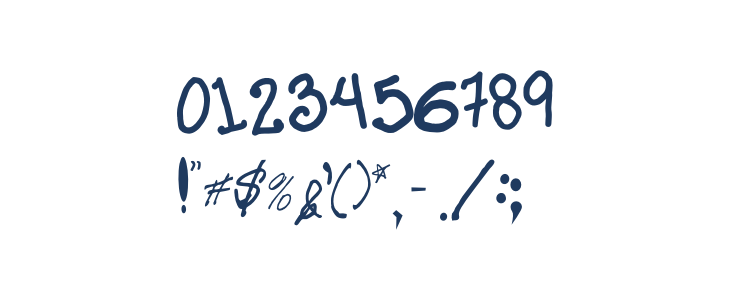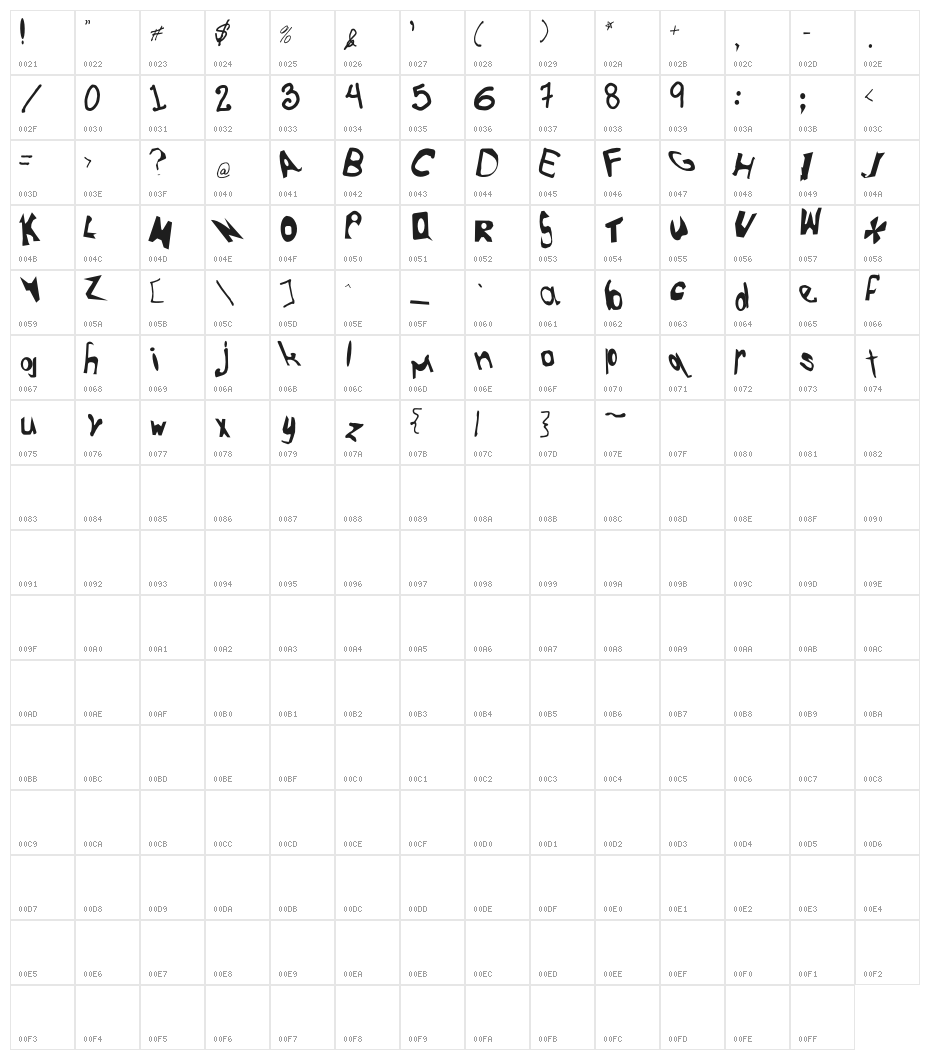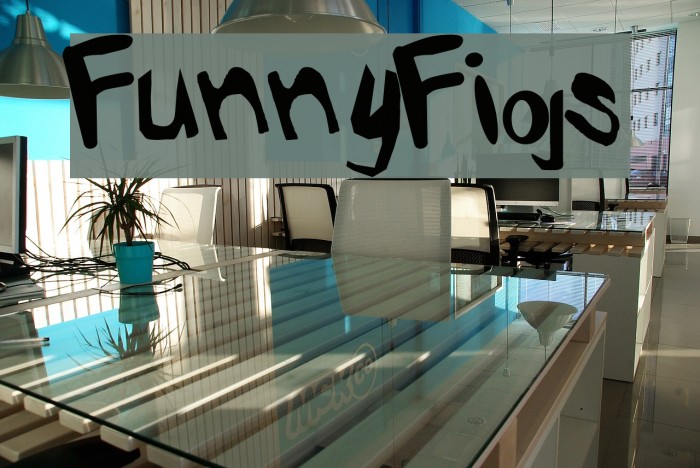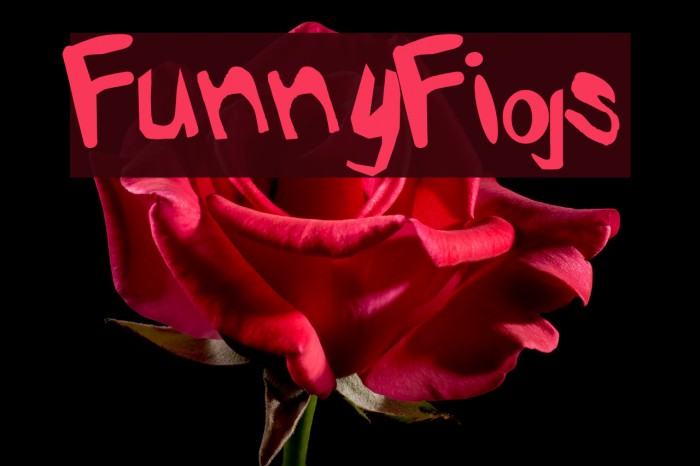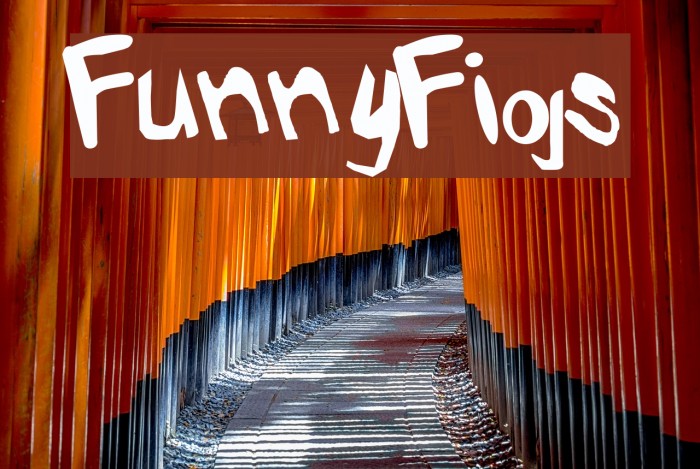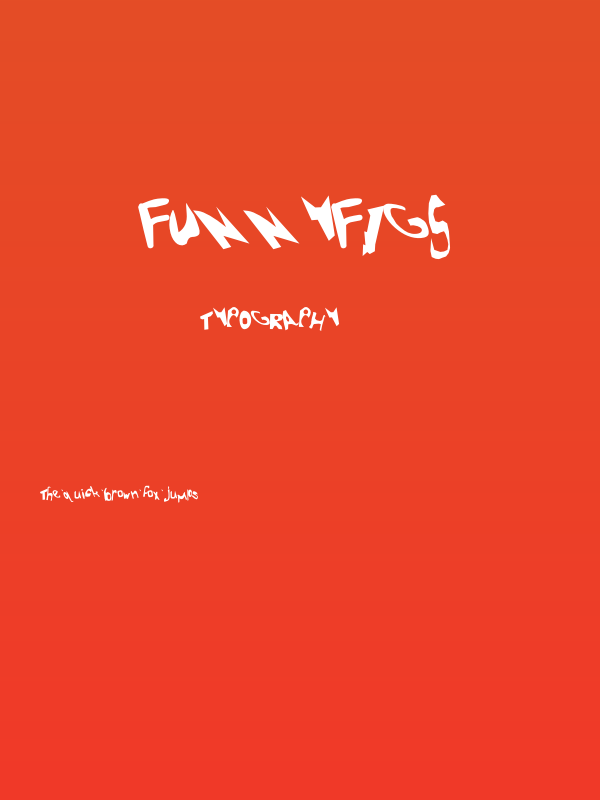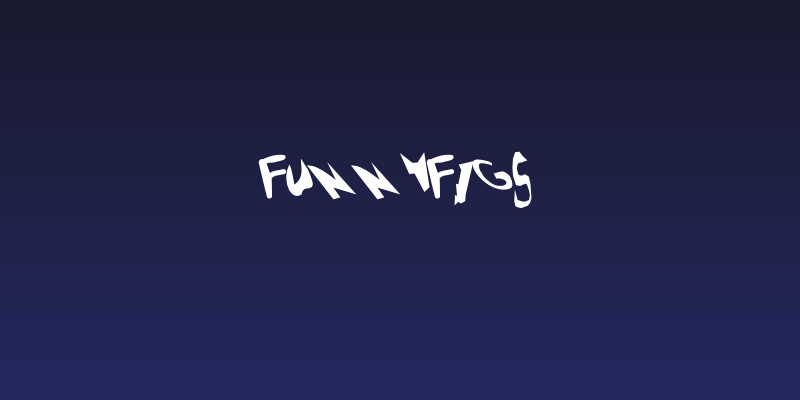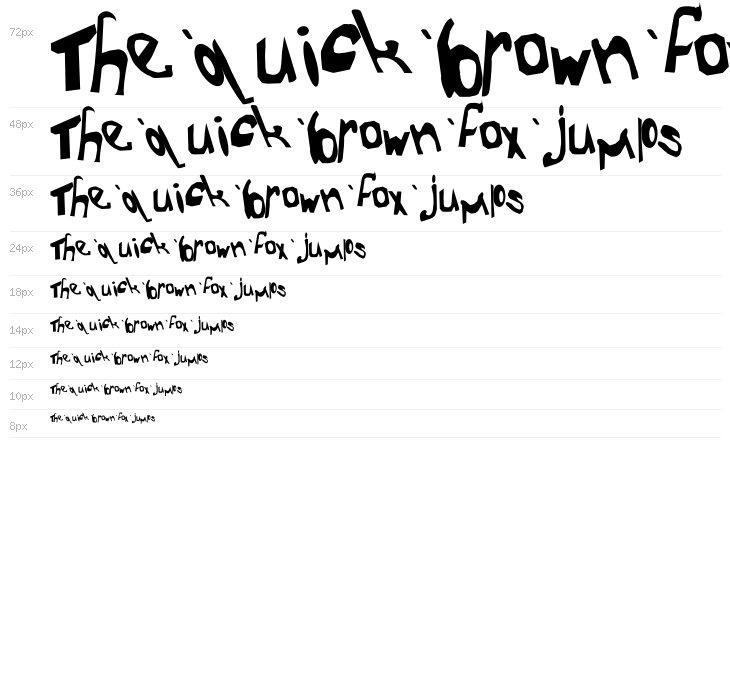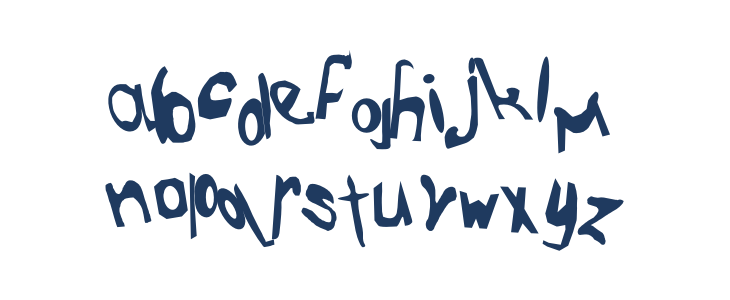
FunnyFigs Font
FunnyFigs Description
This font exhibits a playful and whimsical style, characterized by its uneven and exaggerated letterforms. The uppercase letters are bold and dynamic, with varying angles and curves that give a sense of movement and energy. The lowercase letters maintain this lively aesthetic, with some letters appearing more abstract and irregular. The numbers follow suit, with quirky shapes that add to the font's overall charm. Special characters are creatively designed, enhancing the font's unique personality. This font is perfect for projects that require a fun and unconventional look.